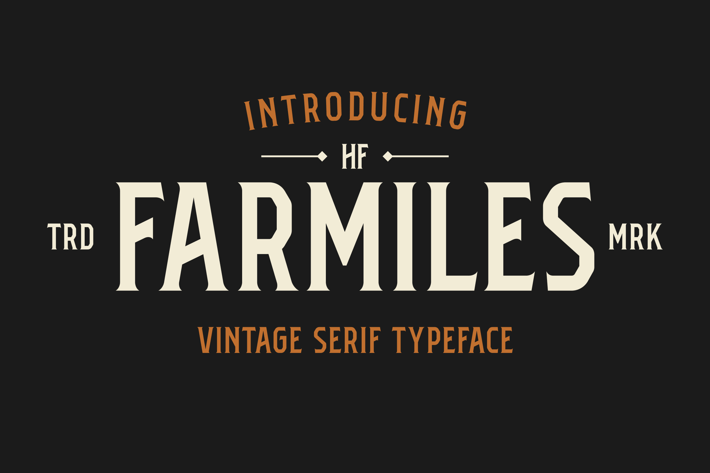
HF Farmiles Vintage Serif Typeface
HF Farmiles font with a classic and masculine all caps serif style for your designs, equipped with an opentype feature on several letters, with a total of 412 glyphs and multilingual support.
This font good for designing posters, logos, titles, signs, and anything that requires the use of classic and masculine style fonts.
All caps
412 Glyphs
Currency symbol
Alternates
Ligatures
* Multilingual Support